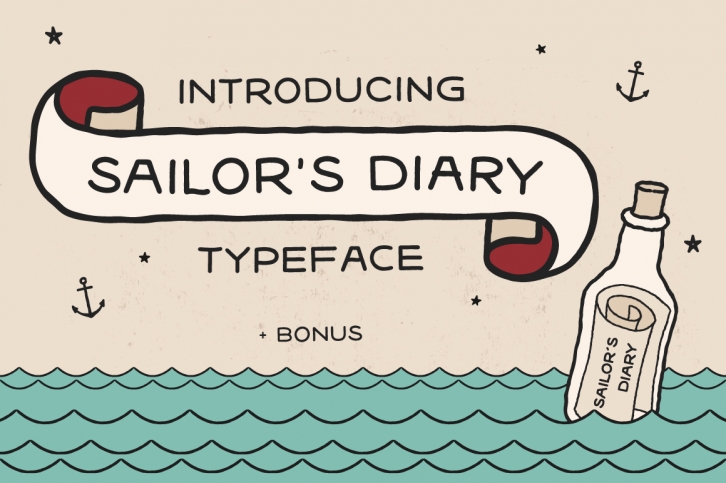
Sailors Diary Sans Tattoo Style Font Download
Sailors Diary Sans Tattoo Style is a great font that was designed by BAD TASTE. Imagine the amount of combinations you can create using this font! The archive is 21.98 MB and it was released on August 6, 2018. Sailors Diary Sans Tattoo Style looks beautiful on wedding invitations, greeting cards, logos, posters, labels, t-shirt designs, logos, business cards and is perfect for use in ink or watercolor works, fashion, magazines, packaging and food menus, children's books and more!